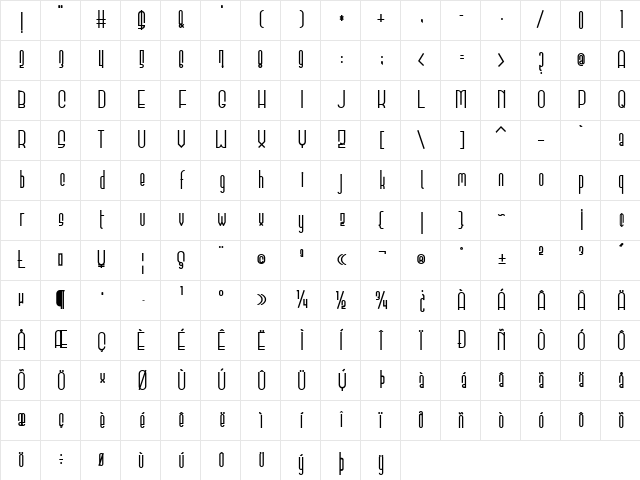
Elevant (by pelash) Bold
Foundry: Pelash
Designer: Pelash
Design Context for Elevant (by pelash)
Elevant (by pelash) is a composed and adaptable typeface that performs quietly and consistently across a wide range of design contexts. Its bold stroke weight gives it real presence on the page.